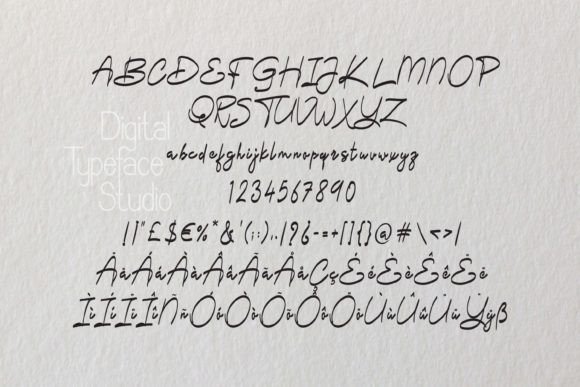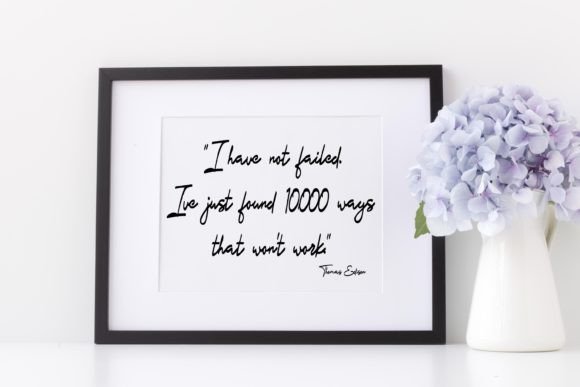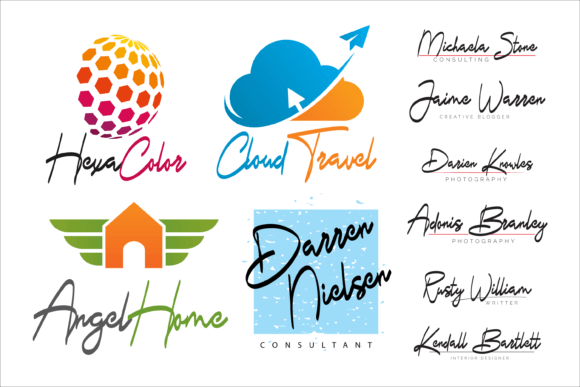
Fergus Font: Elevate Your Designs with a Trendy, Stylish, and Readable Handwritten Font
Are you tired of using the same old fonts for your creative projects? Look no further than Fergus Font, a trendy, stylish, and readable handwritten font that’s perfect for logos, branding, and more. In this article, we’ll dive into the world of Fergus Font and explore its features, benefits, and uses.
What is Fergus Font?
Fergus Font is a modern, handwritten font designed to add a touch of elegance and sophistication to your designs. With its flowing lines and cursive style, Fergus Font is perfect for creating logos, headings, and titles that stand out from the crowd. Whether you’re a designer, crafty DIY enthusiast, or small business owner, Fergus Font is an excellent choice for anyone looking to add some personality to their projects.
Key Features of Fergus Font
• Trendy and Stylish: Fergus Font boasts a fresh, modern look that’s sure to turn heads. Its unique style sets it apart from more traditional fonts, making it perfect for designers and crafters who want to create something truly special.
• Readability: One of the standout features of Fergus Font is its exceptional readability. Even at smaller sizes, Fergus Font remains clear and easy to read, making it perfect for use in a variety of applications, from logos and headings to body text.
• Versatility: Fergus Font is incredibly versatile, making it suitable for use in a wide range of creative projects, including logos, branding, packaging, and more.
Benefits of Using Fergus Font
So why choose Fergus Font for your next project? Here are just a few benefits of using this amazing font:
• Adds Personality: Fergus Font adds a touch of personality to your designs, setting them apart from more generic, cookie-cutter fonts.
• Enhances Branding: With its unique style and exceptional readability, Fergus Font is perfect for creating logos and branding materials that truly represent your business or brand.
• Boosts Creativity: Fergus Font’s stylish and trendy design is sure to inspire your creativity, helping you to come up with fresh, innovative ideas for your projects.
Uses for Fergus Font
Fergus Font is an incredibly versatile font that can be used in a wide range of creative projects, including:
• Logos and Branding: Create stunning logos and branding materials that truly represent your business or brand.
• Headings and Titles: Use Fergus Font to add a touch of elegance and sophistication to your headings and titles.
• Packaging: Fergus Font is perfect for use in packaging design, adding a touch of personality to your product labels and packaging materials.
• Signage: Create eye-catching signs and displays with Fergus Font, perfect for businesses, events, and more.
Font Name Fergus Font
Author Digital Typeface Studio
In conclusion, Fergus Font is an exceptional handwritten font that’s perfect for designers, crafters, and small business owners looking to add some personality to their projects. With its trendy, stylish design, exceptional readability, and versatility, Fergus Font is an excellent choice for anyone looking to elevate their designs and create something truly special.